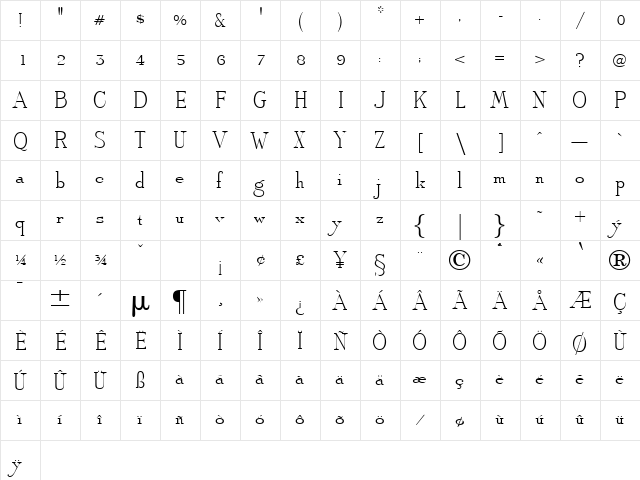
Arbiter Regular
Design Context for Arbiter Typeface
Arbiter takes a measured approach to typography — its balanced proportions and neutral character make it a reliable workhorse for both digital and print work.